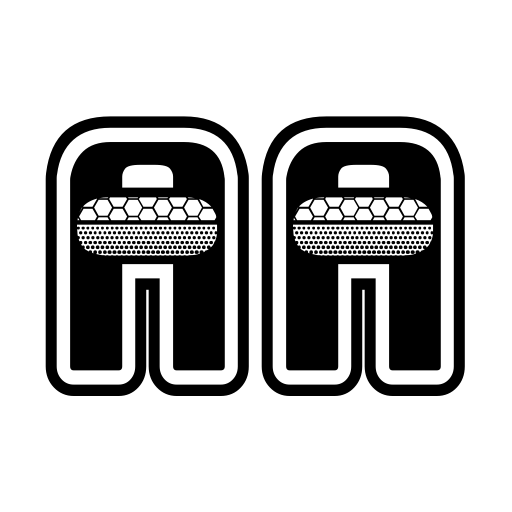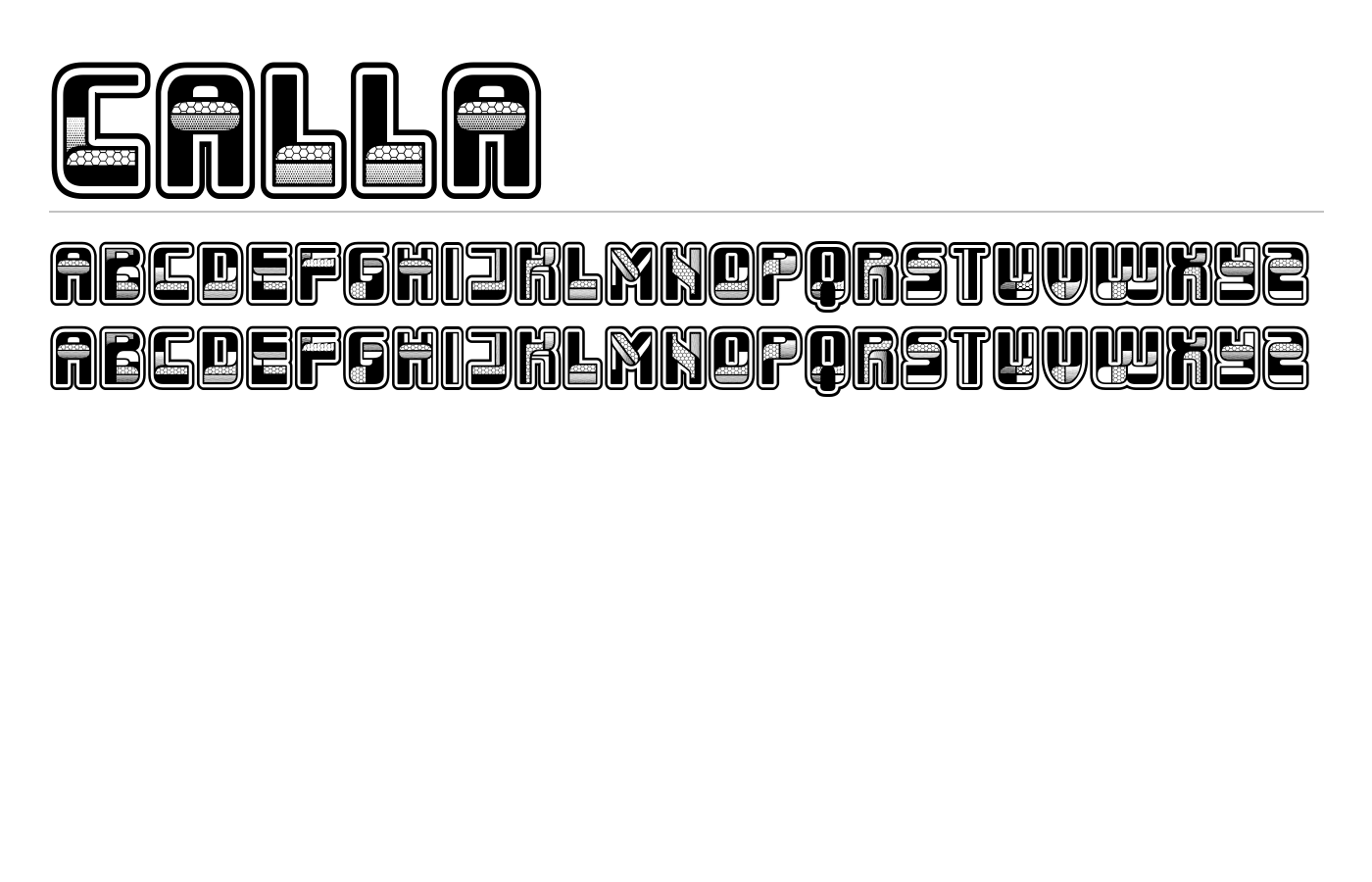
Calla Font is a bold, decorative display typeface featuring a playful, rounded, and outlined sans serif style with intricate pattern fill details that add a unique texture to each character. Its tightly spaced, all-caps design with geometric letterforms and fun ornamental elements makes it ideal for eye-catching headlines, logos, and creative branding where a lively, modern, and distinctive look is desired. This font’s boldness and stylized shapes give it a strong personality perfect for packaging, posters, and any design that wants to stand out with flair and originality.
Calla Font
About Calla Font